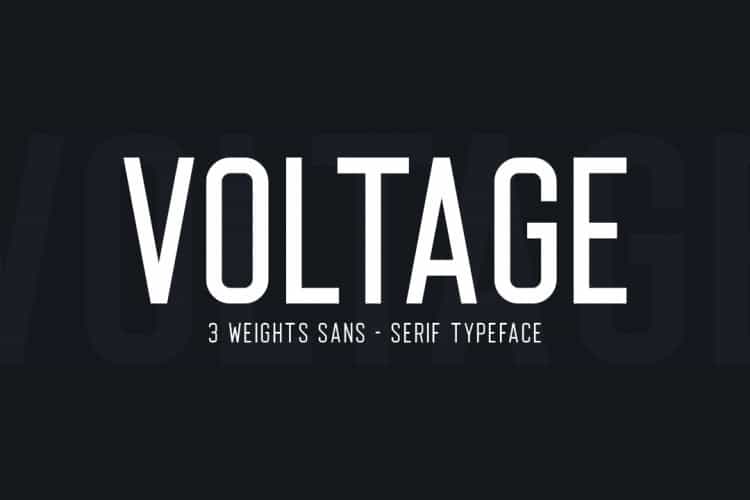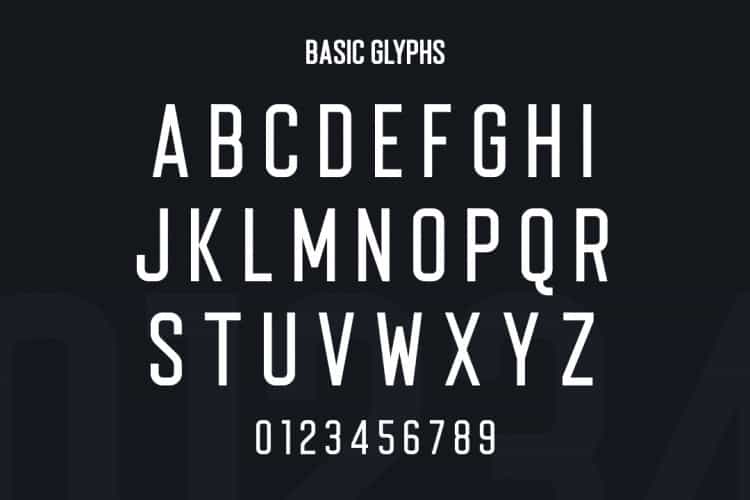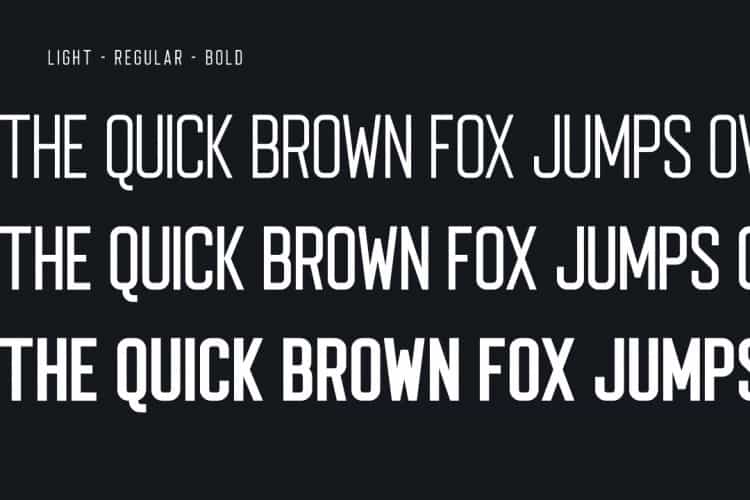
This is a sans serif typeface. Here is the Voltage Sans Serif Font, say hello to it!It is developed and maintained by FMStrore. Voltage is a contemporary font family designed to cover both headlines and the main text.